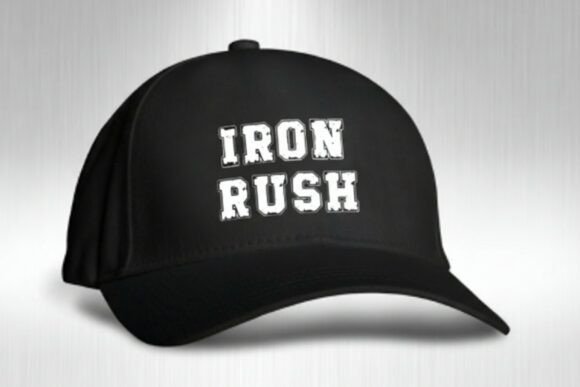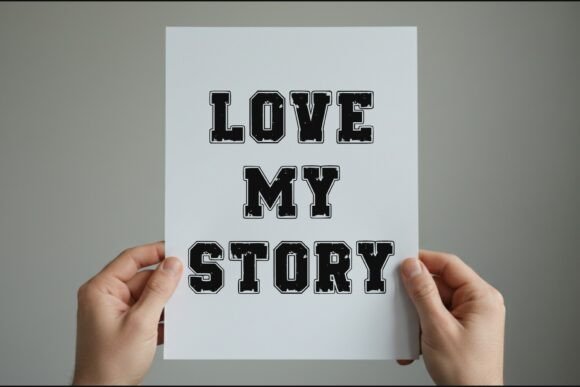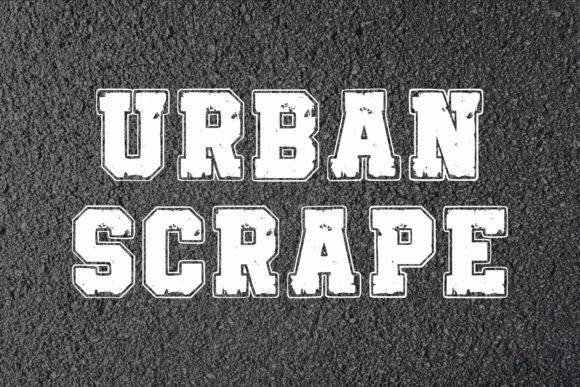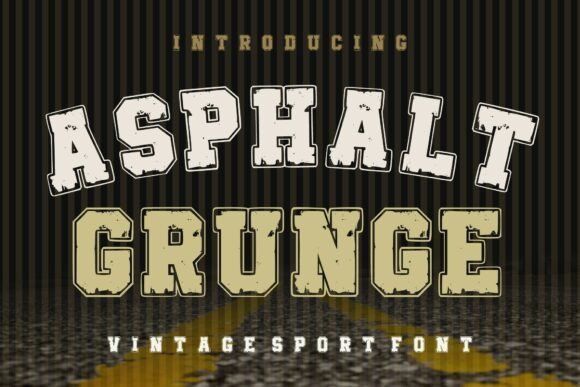
Asphalt Grunge is a bold and rugged display font inspired by vintage sports typography and worn asphalt textures.
Designed with a distressed grunge effect, this font brings an authentic, raw, and energetic feel to your designs Perfect for sports branding, streetwear, posters, logos, merchandise, and bold headlines, Asphalt Grunge captures the spirit of competition and urban style.